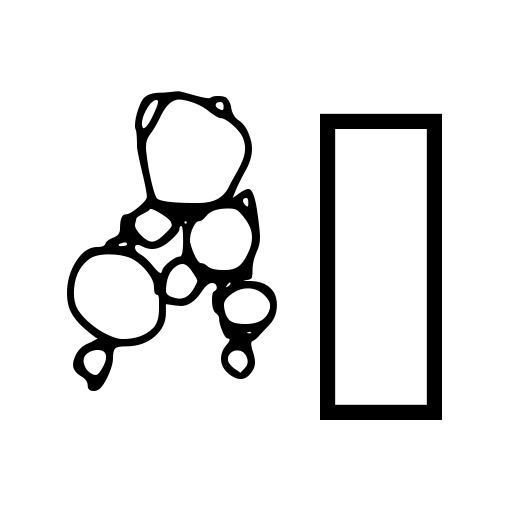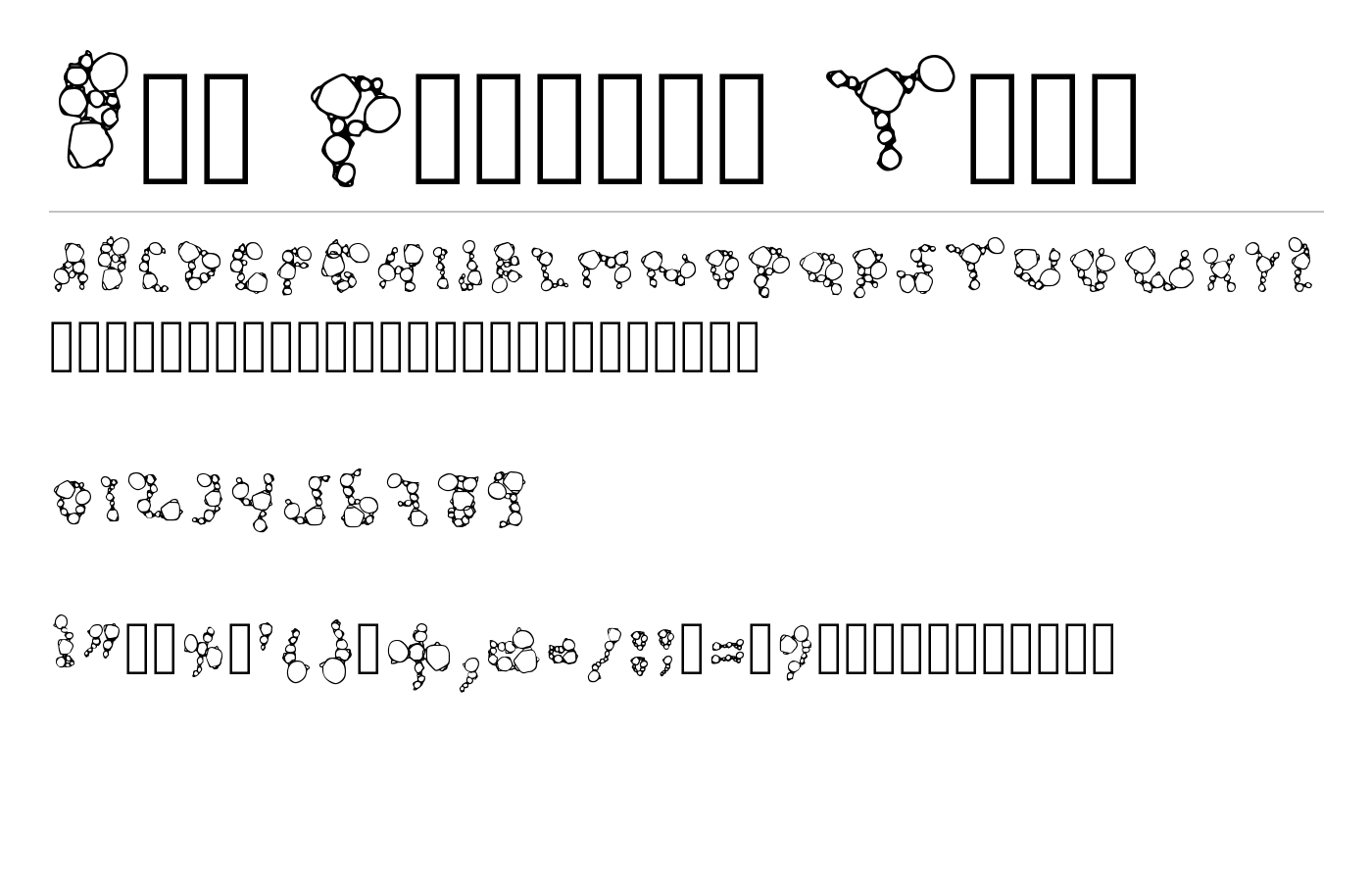
Big Popcorn Time is a playful, decorative font featuring whimsical letterforms made up of interconnected bubble-like shapes, giving it a fun, lighthearted personality. Its irregular, organic structure makes it perfect for creative projects, children’s media, or any design seeking a quirky, informal vibe. This font works best in headlines, logos, or promotional materials where a bold and memorable visual impact is desired.
Big Popcorn Time Font
About Big Popcorn Time Font